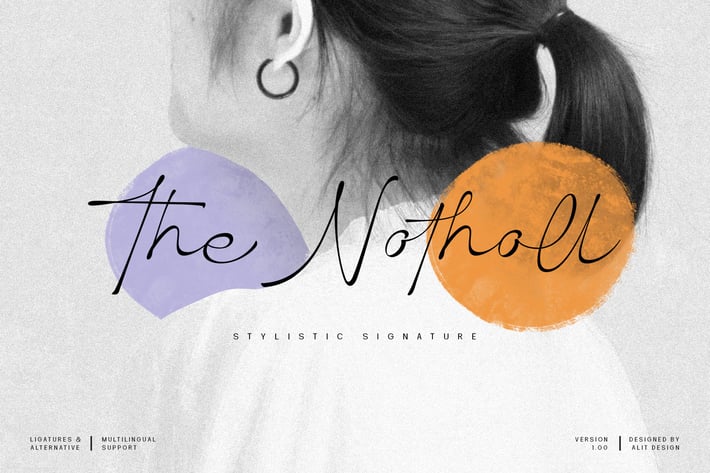
The Notholl Script font
Presenting the Notholl Script font from alitdesign.
The Notholl Script font is inspired by spontaneous and dynamic signature strokes with an ink texture that makes the Notholl font look real. The Notholl font looks unique and charming which makes designs using the Notholl font look more prominent and cool. The Notholl font is perfect for a collection of new fonts on your computer, tablet and smartphone for making unique designs or lettering.
Notholl Signature Script font is perfect for magazine cover designs, brochures, flyers. Instagram ads, Canva Design and so on with unique and modern concepts. besides that this font is very easy to use both in design and non-design programs because everything changes and glyphs are supported by Unicode (PUA).
The Notholl Script contains 768 glyphs with many unique and interesting alternative options.
Language Support :
Latin, Basic, Western European, Central European, South European,Vietnamese.